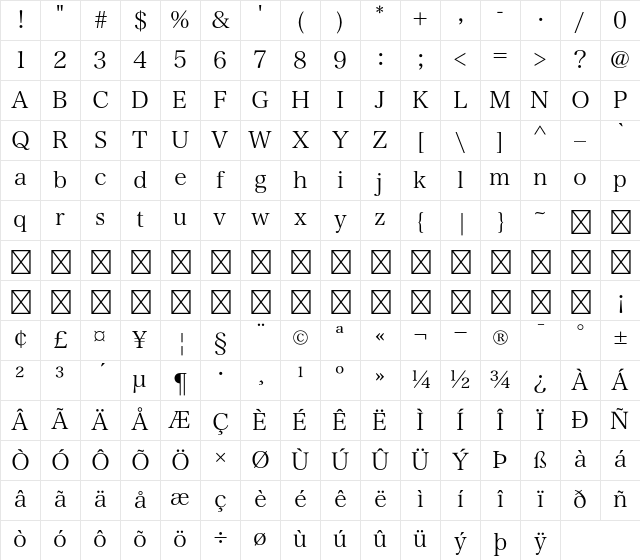
Hiragino Mincho ProN W2
Style: W2
Foundry: Dainippon Screen Mfg. Co., Ltd.
Designer: JIYUKOBO Ltd.
Design Context for Hiragino Mincho ProN
Hiragino Mincho ProN is a composed and adaptable typeface that performs quietly and consistently across a wide range of design contexts.
Pro Tip: Use Hiragino Mincho ProN in both headline and body roles to test its range before committing to a single application.